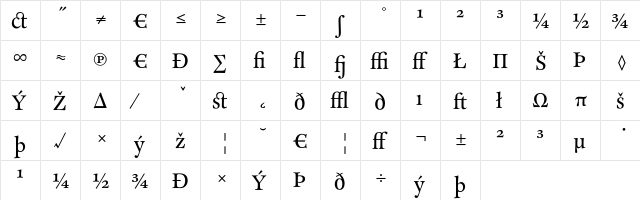
CliffordEighteen RomanExpert
Design Context for CliffordEighteen Typeface
CliffordEighteen is a composed and adaptable typeface that performs quietly and consistently across a wide range of design contexts.